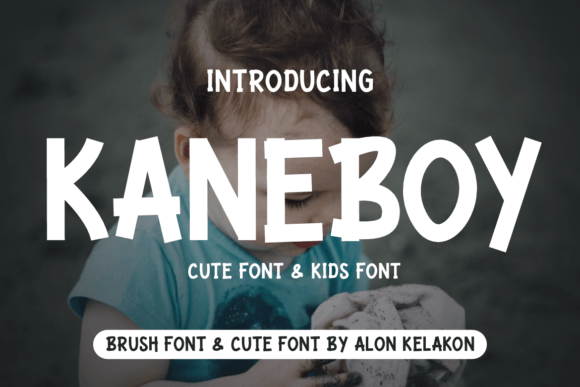
Feast your eyes upon Kaneboy, a masterpiece in the world of typography! Radiating boldness and assertiveness, this sans serif font is an artistic force to be reckoned with.
Imagine crafting a letter that exudes professionalism and confidence. Kaneboy is your secret weapon, effortlessly elevating your words into a symphony of sophistication. Its carefully crafted strokes dance across the page, leaving an unforgettable impression that lingers in the minds of your readers.
But Kaneboy's allure extends far beyond formal correspondence. Unleash its versatility to create captivating headlines that demand attention, or let it lend its charm to marketing materials that ignite imaginations. Every stroke, every curve, is a testament to the power of typography.
Whether you're a seasoned designer or just starting to explore the boundless realm of fonts, Kaneboy is an essential addition to your arsenal. Its ability to transform ordinary words into extraordinary works of art is simply undeniable.
Embrace the beauty of Kaneboy today, and let your creativity soar to new heights!